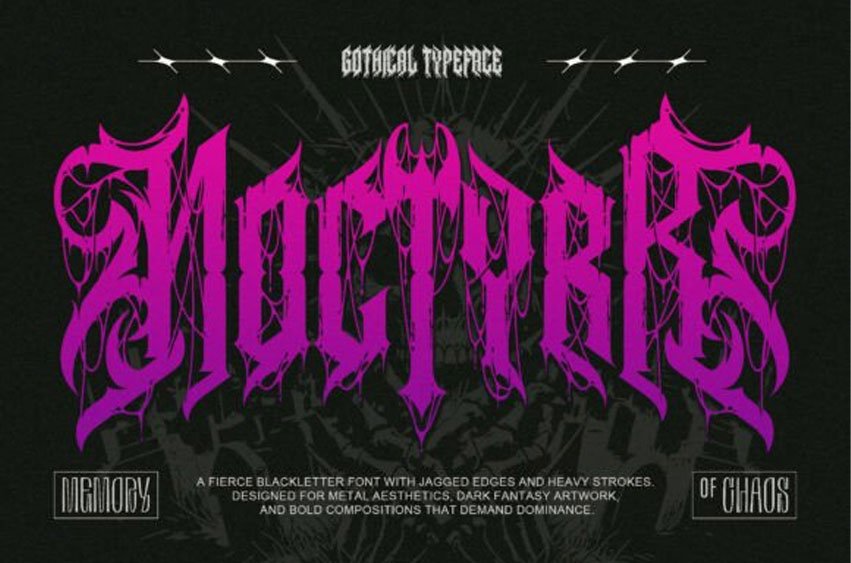
Noctyrr Font Enter the abyss of unrelenting darkness with Noctyrr, a savage blackletter font forged in chaos, ritual, and raw metal energy.
Perfect for band logos, album covers, dark fantasy titles, horror visuals, underground branding, tattoo lettering, and cinematic compositions that demand dominance, this font commands immediate attention with unapologetic force.